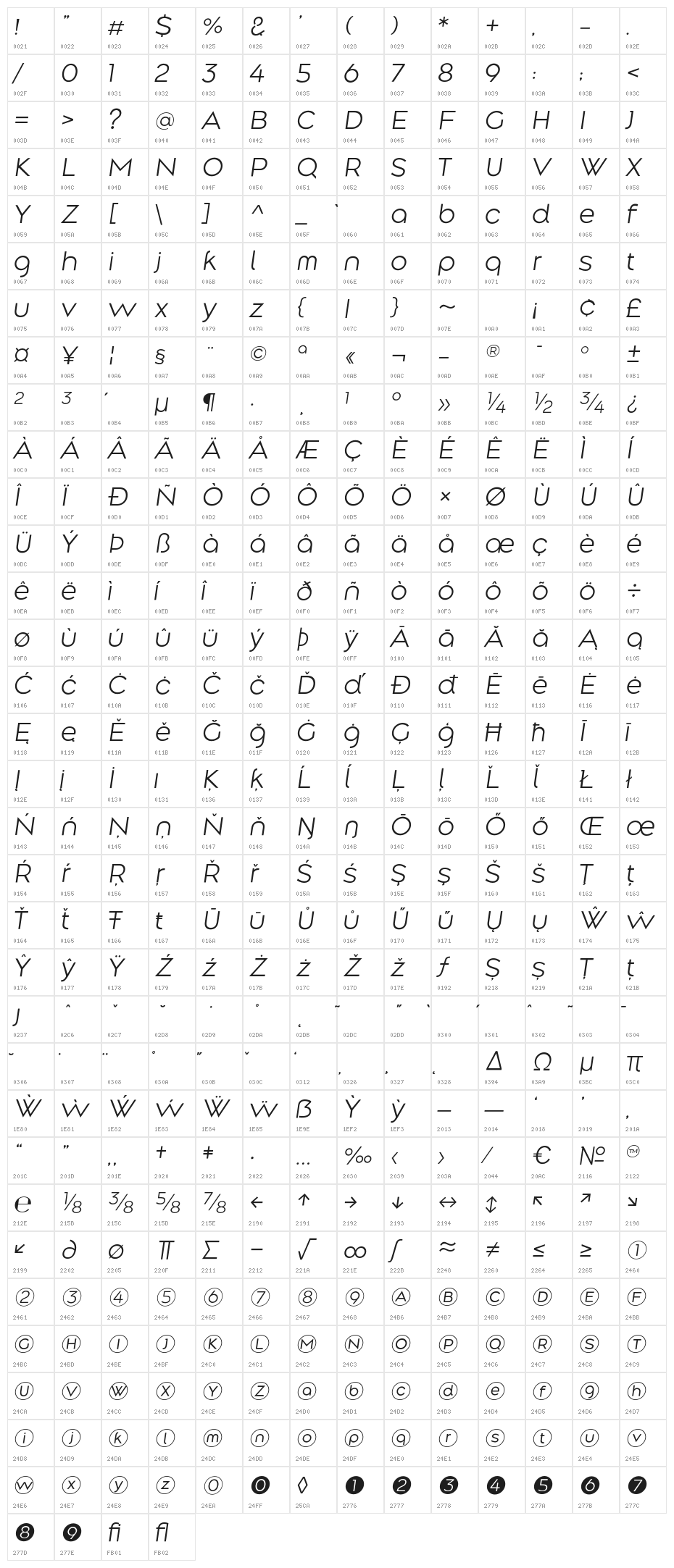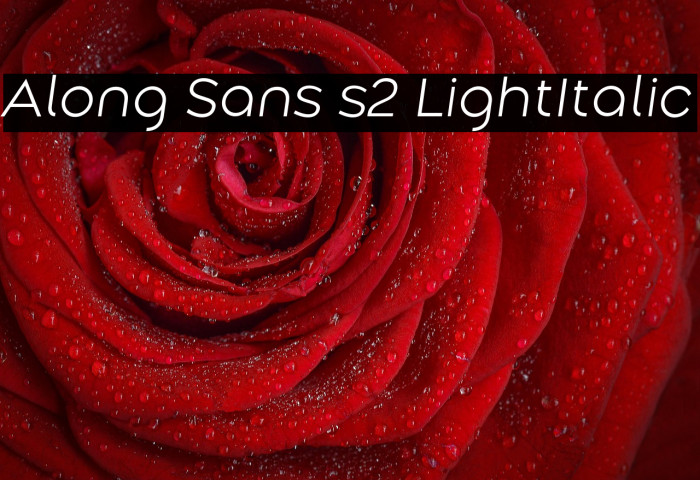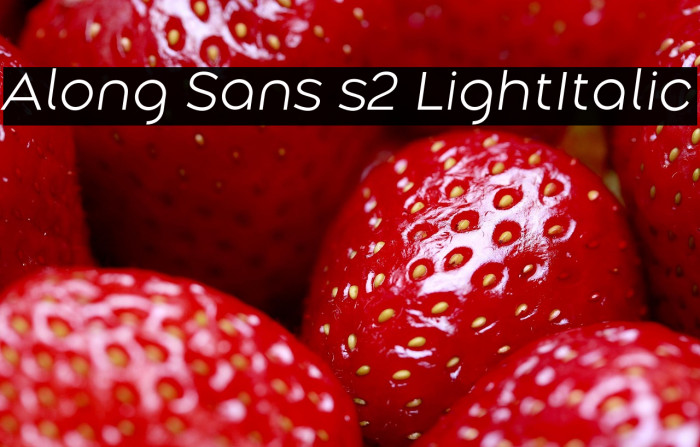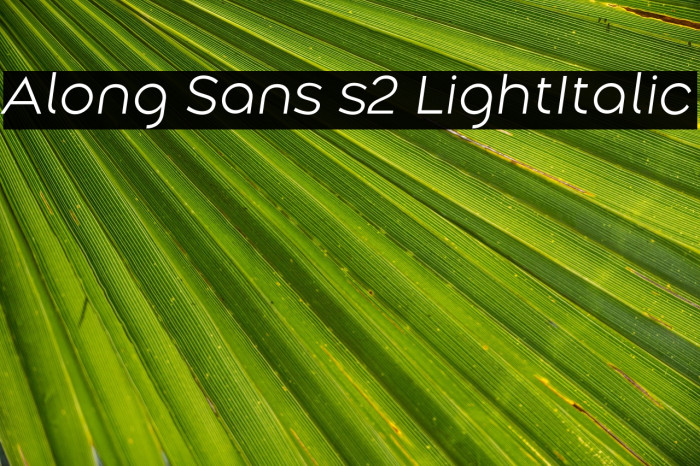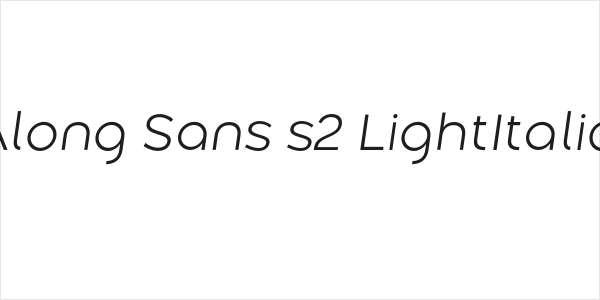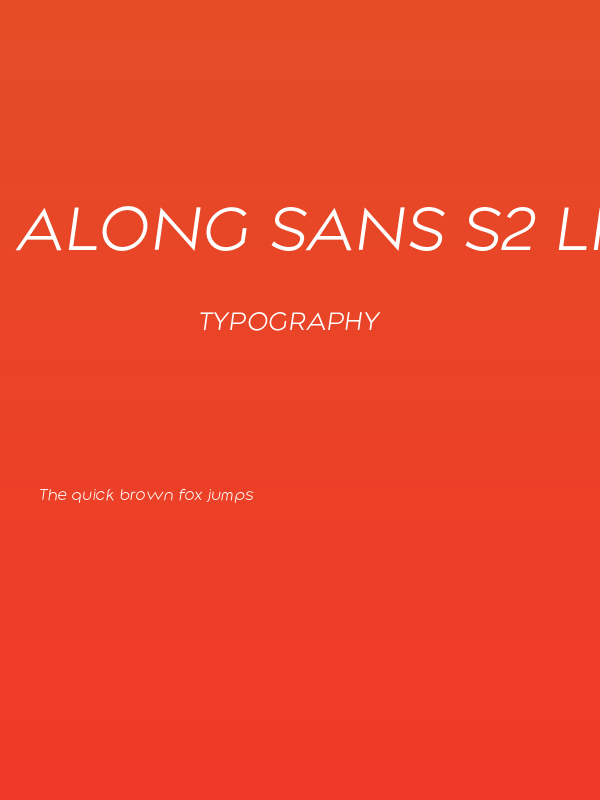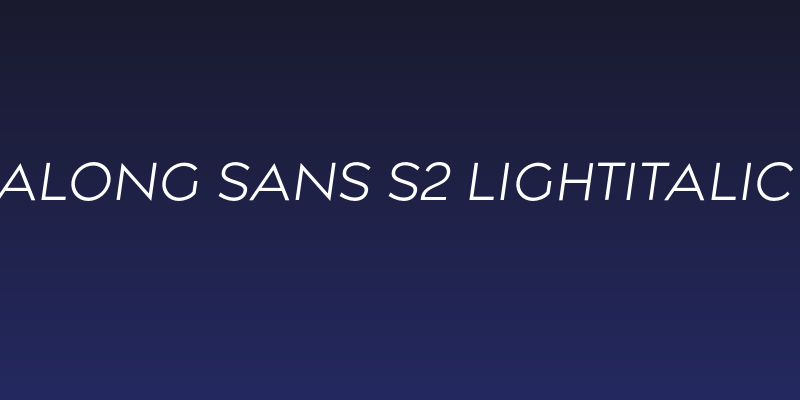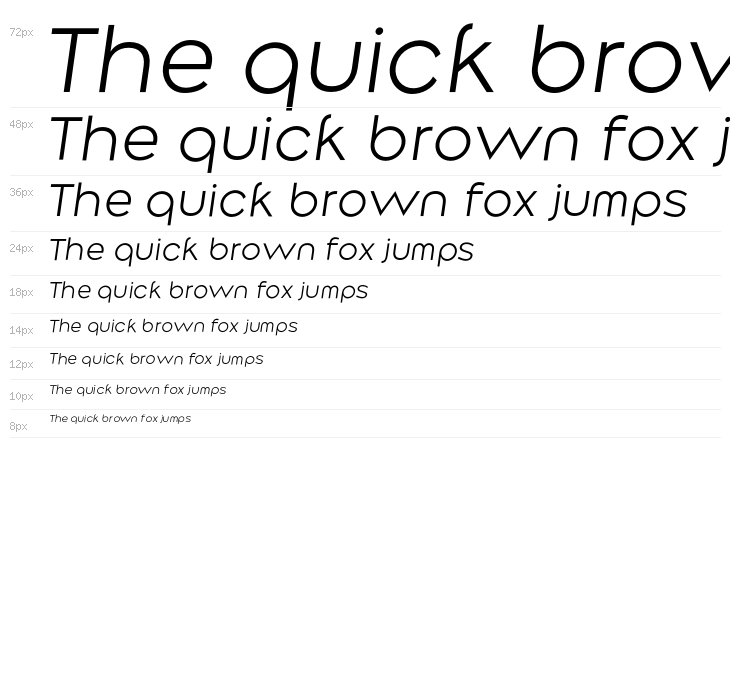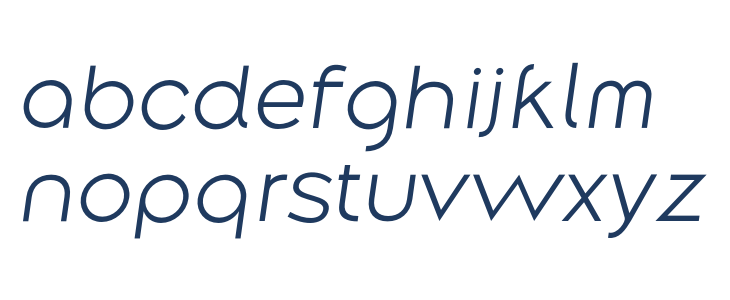
Along Sans s2 LightItalic Font
Along Sans s2 LightItalic Description
This font features a sleek and modern sans-serif design with a light weight and italic style. The characters are elegantly crafted with smooth curves and clean lines, offering a contemporary and minimalist aesthetic. The uppercase letters are slightly taller than the lowercase, providing a balanced and harmonious look. Numbers and special characters maintain the same stylistic approach, ensuring consistency across all glyphs. The overall appearance is refined and sophisticated, making it suitable for a variety of design applications.